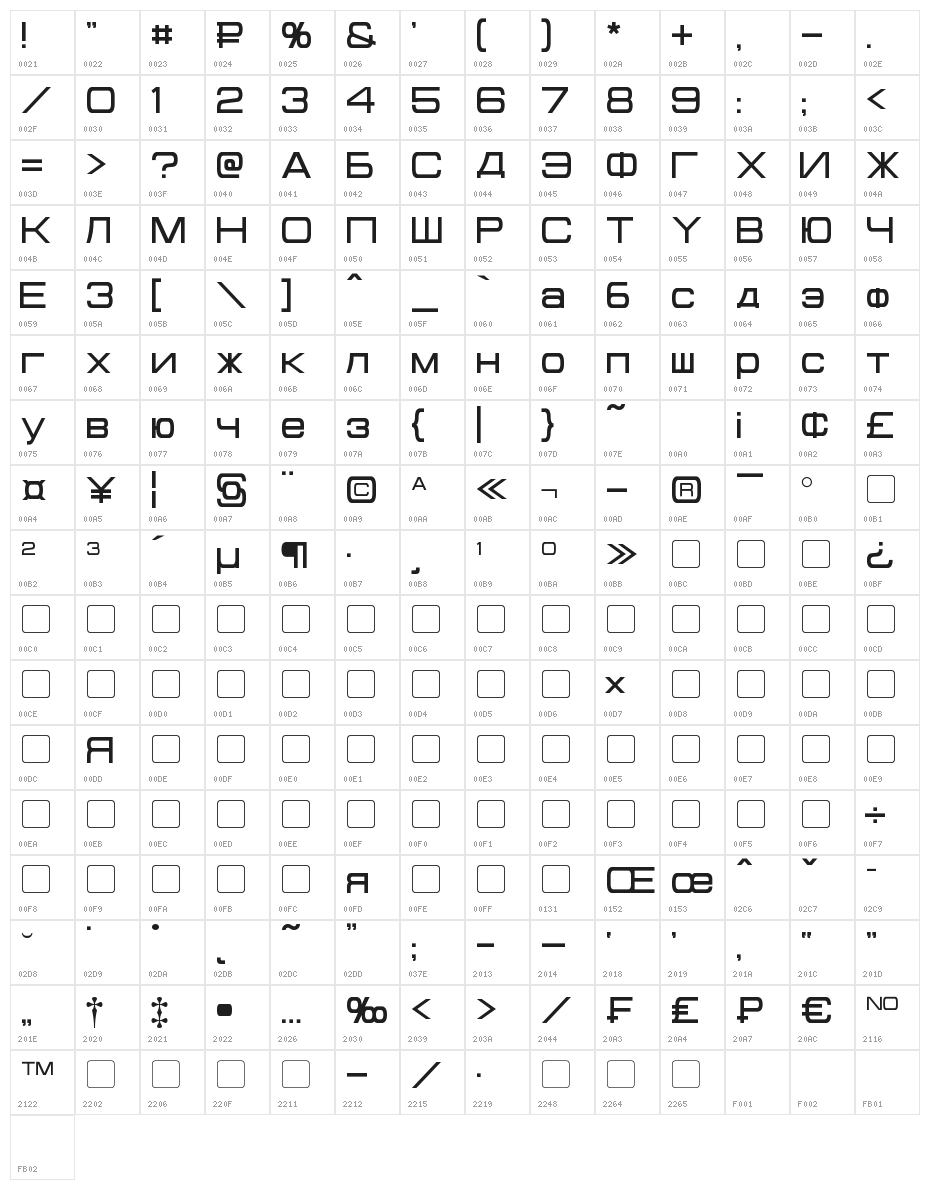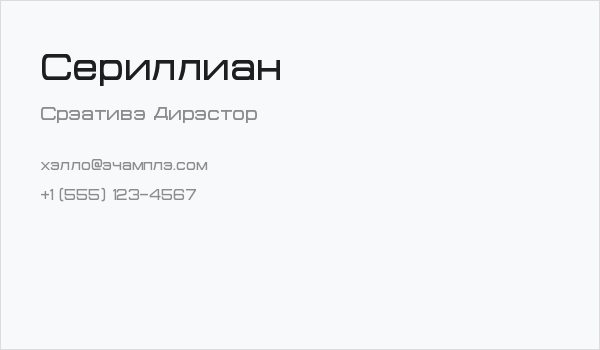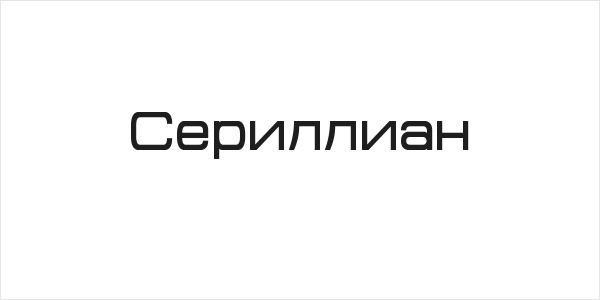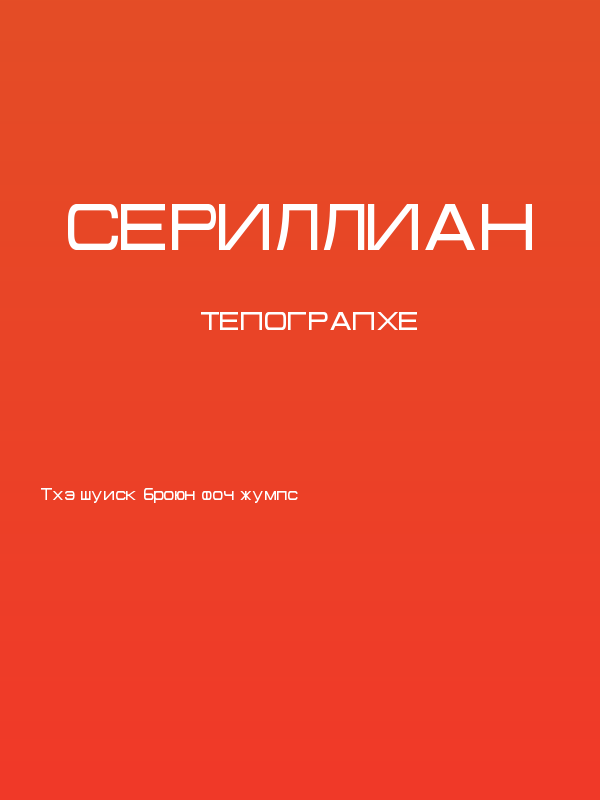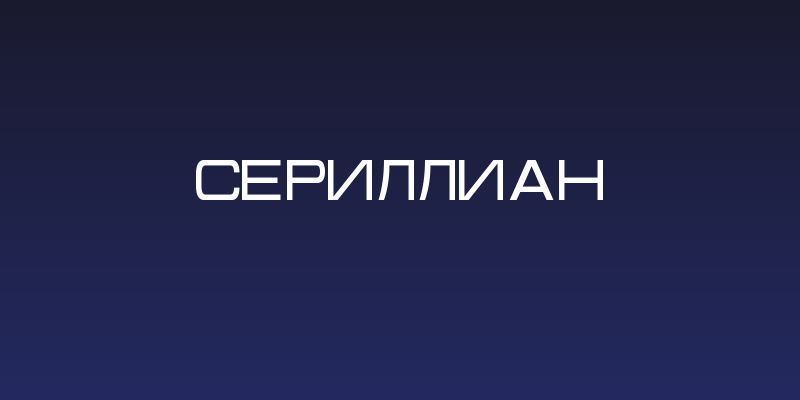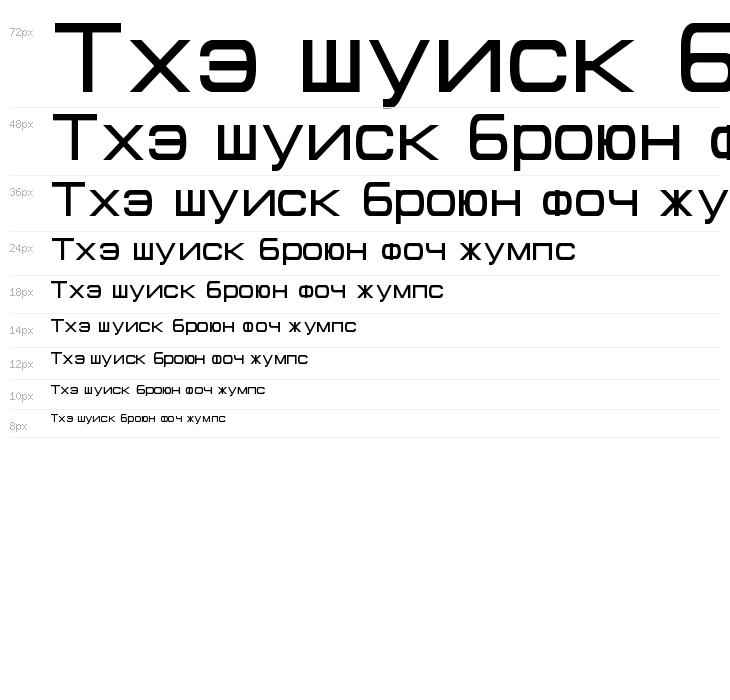
Cyrillian Font
Cyrillian Description
This font features a modern and geometric design with clean lines and a structured appearance. The characters are uniform in width, creating a balanced and cohesive look. The uppercase and lowercase letters maintain a consistent style, with slightly rounded edges that soften the overall sharpness. The numerals are clear and easy to read, complementing the alphabetic characters. Special characters are well-integrated, maintaining the font's geometric aesthetic. The font's simplicity and clarity make it versatile for various design applications.